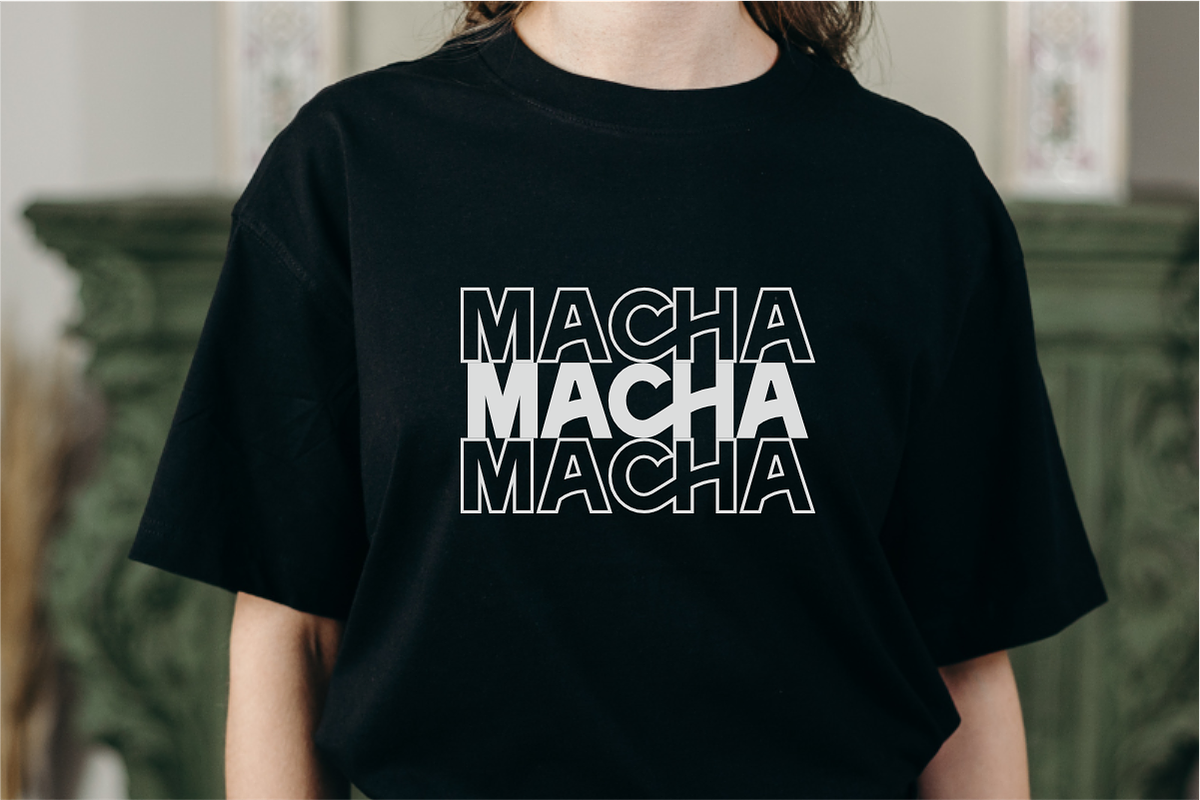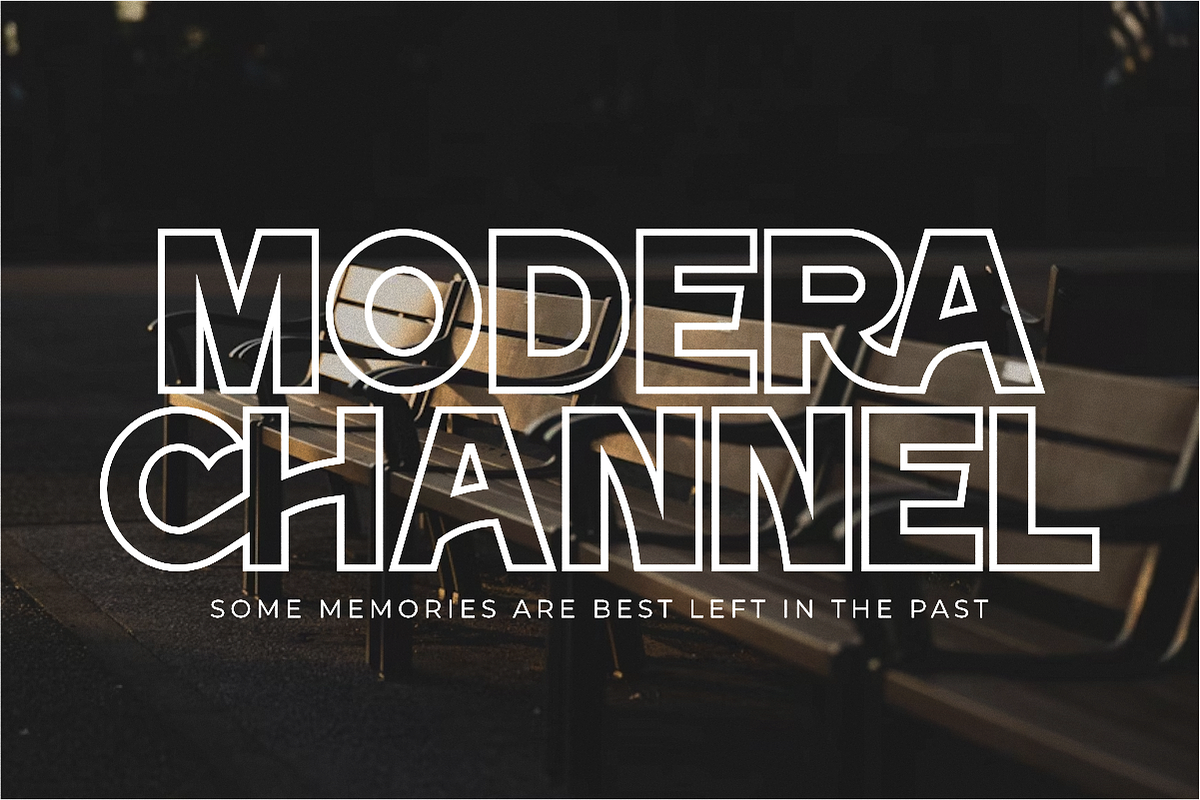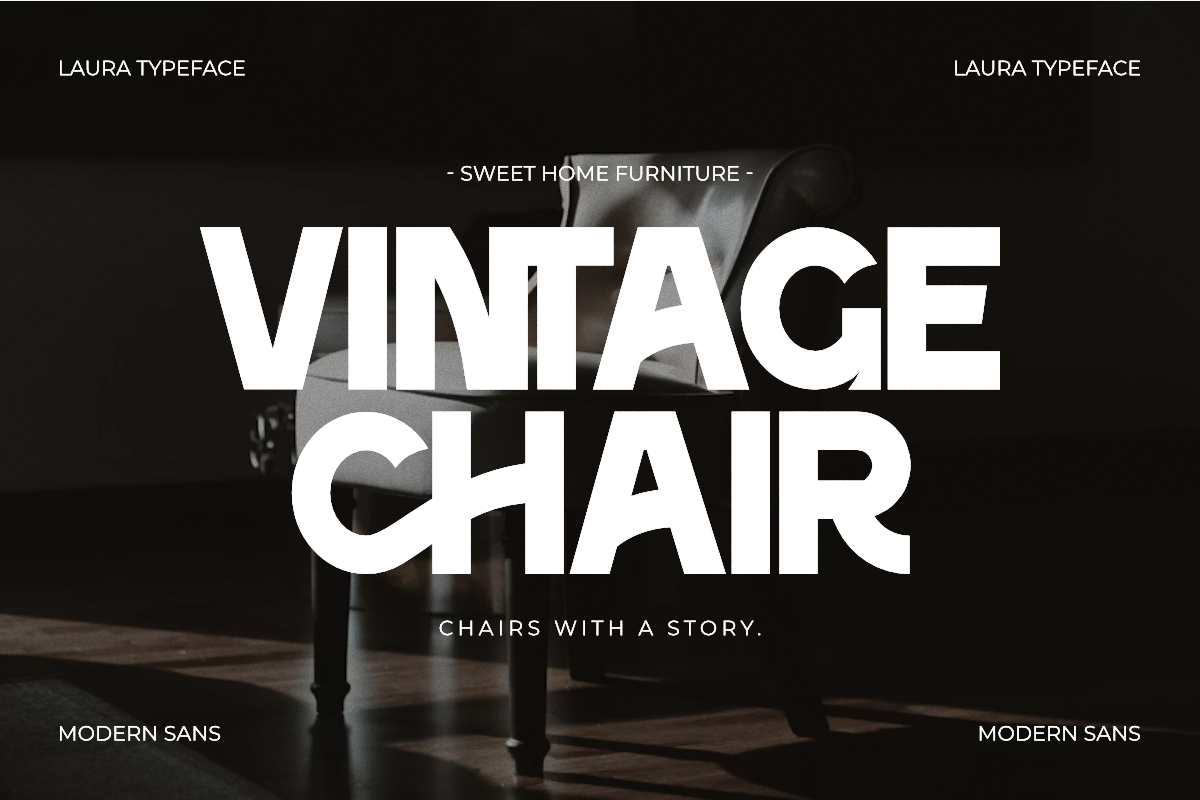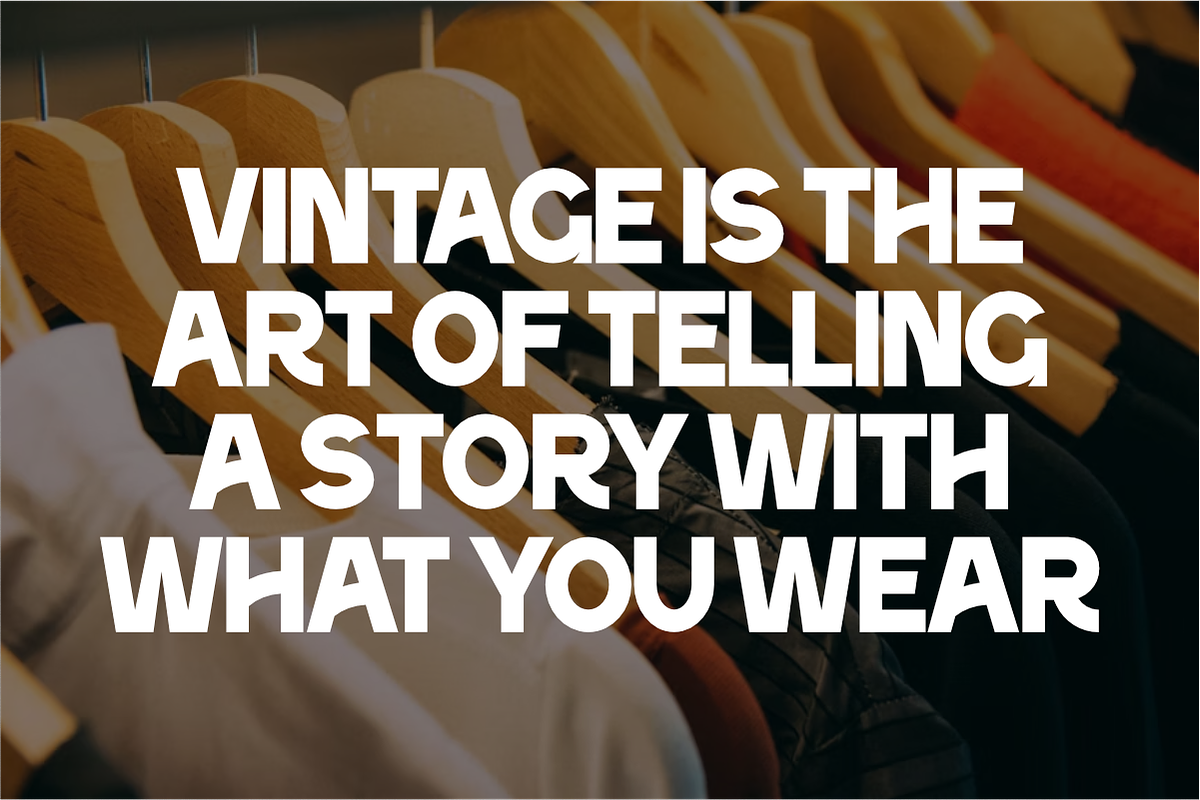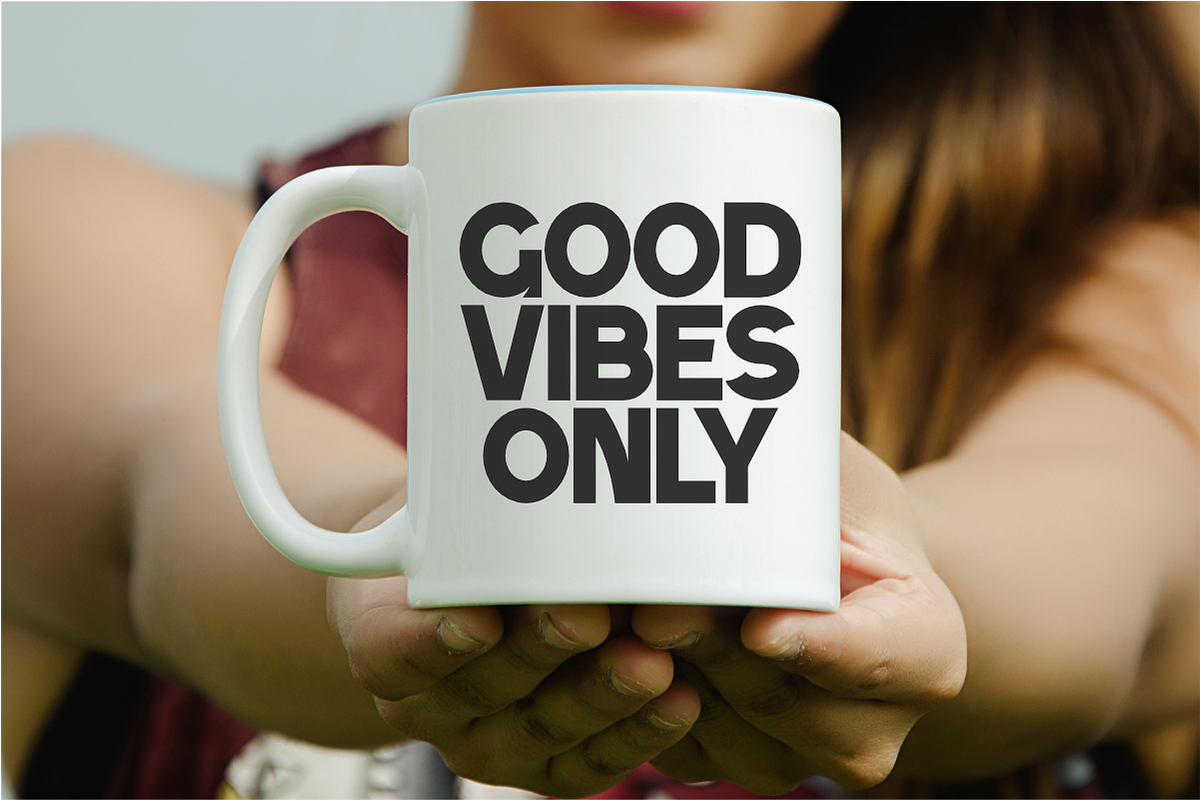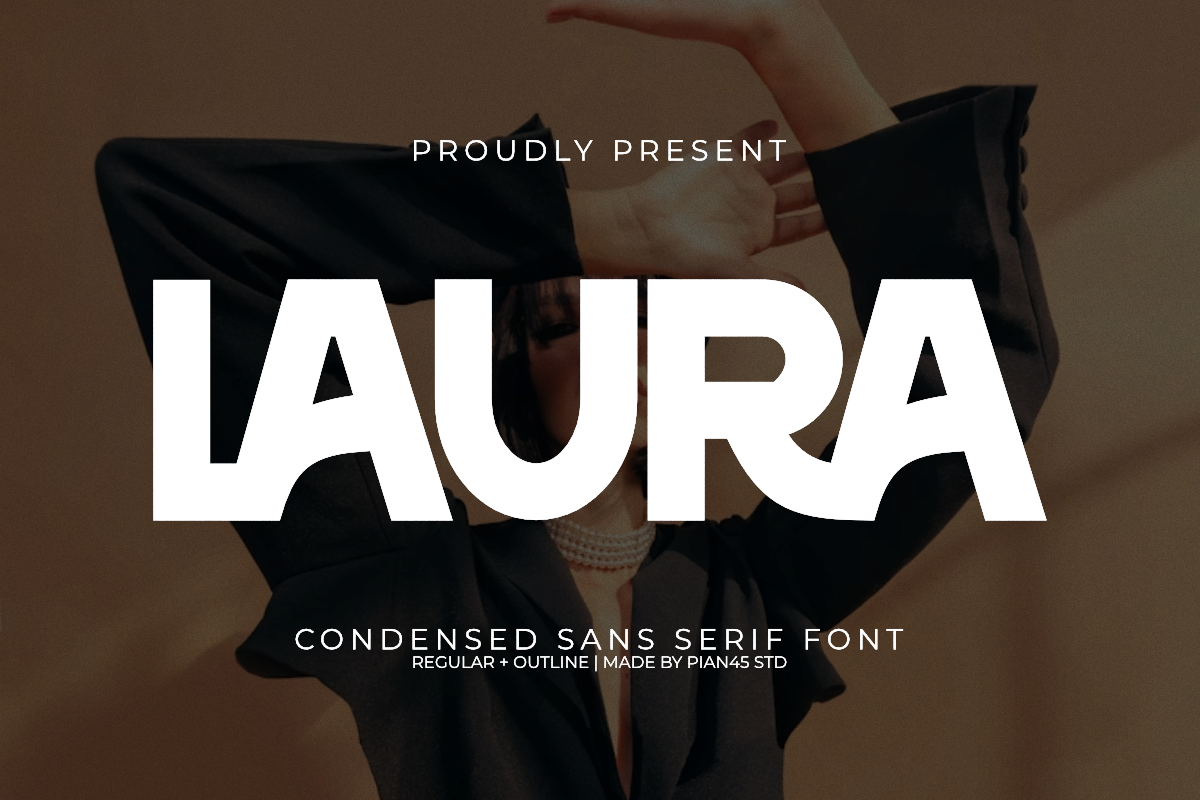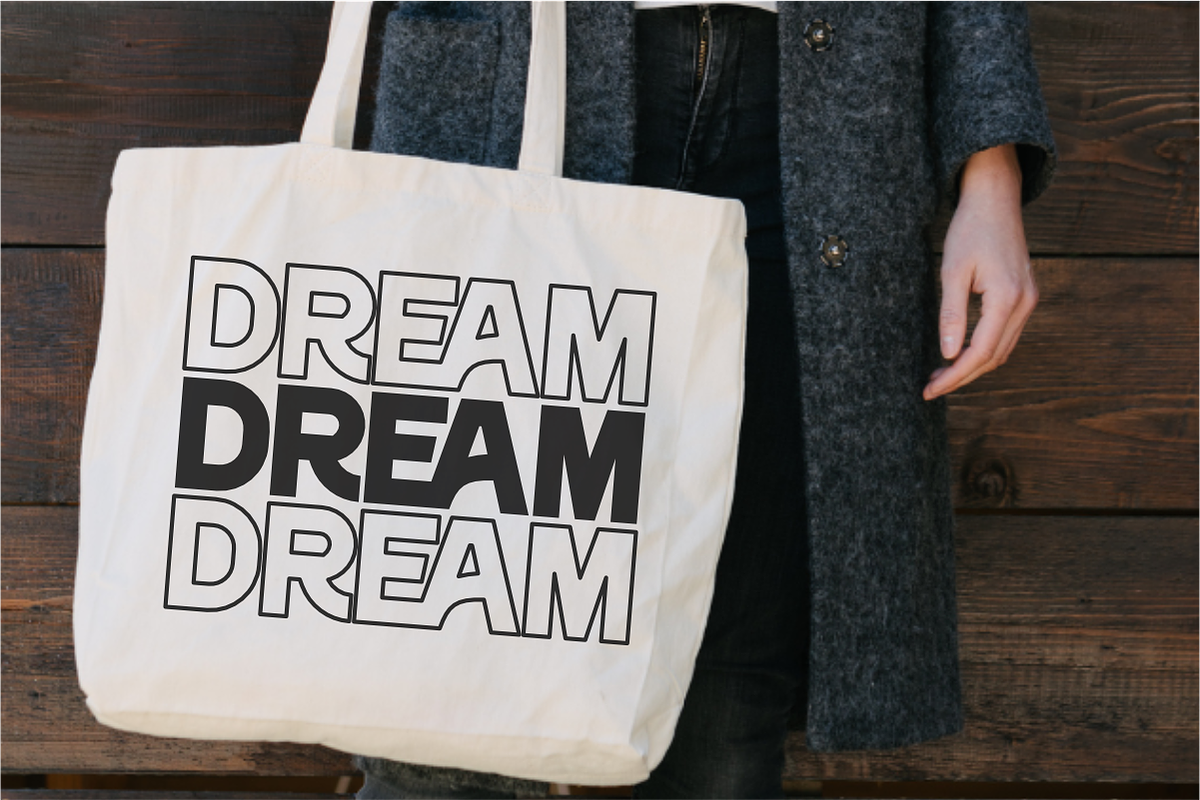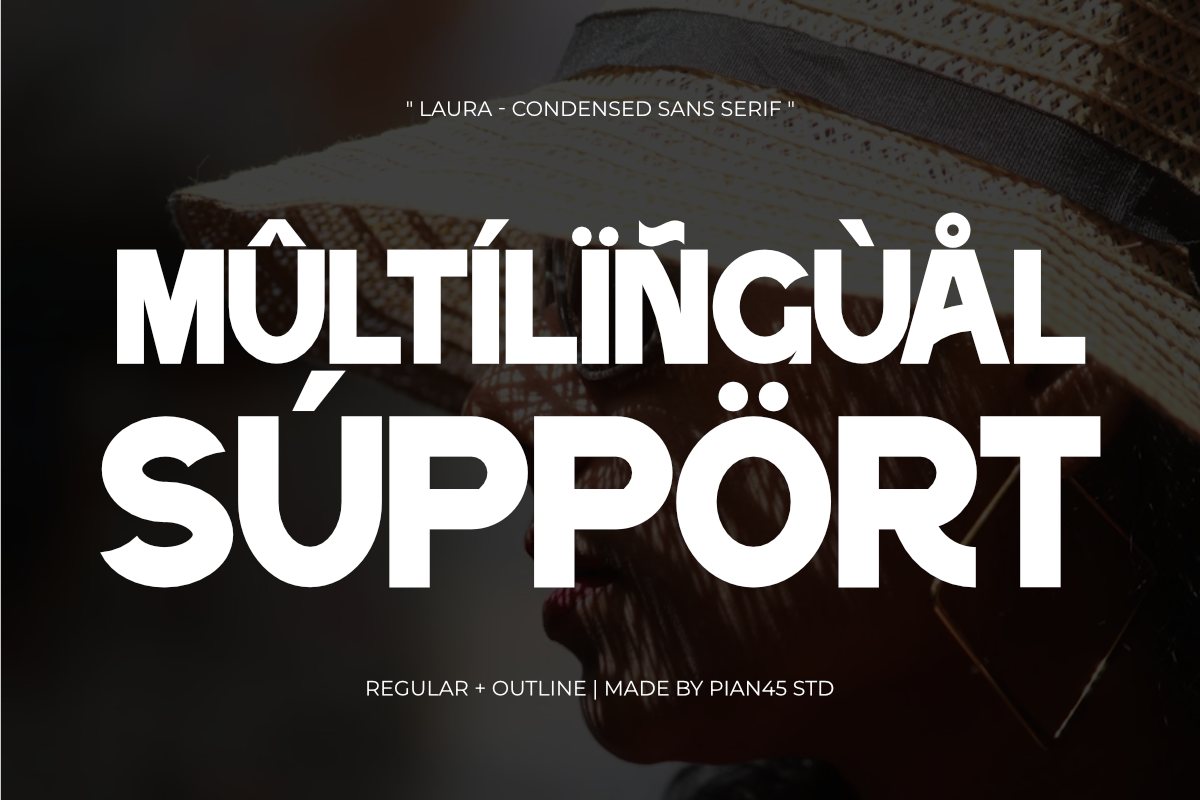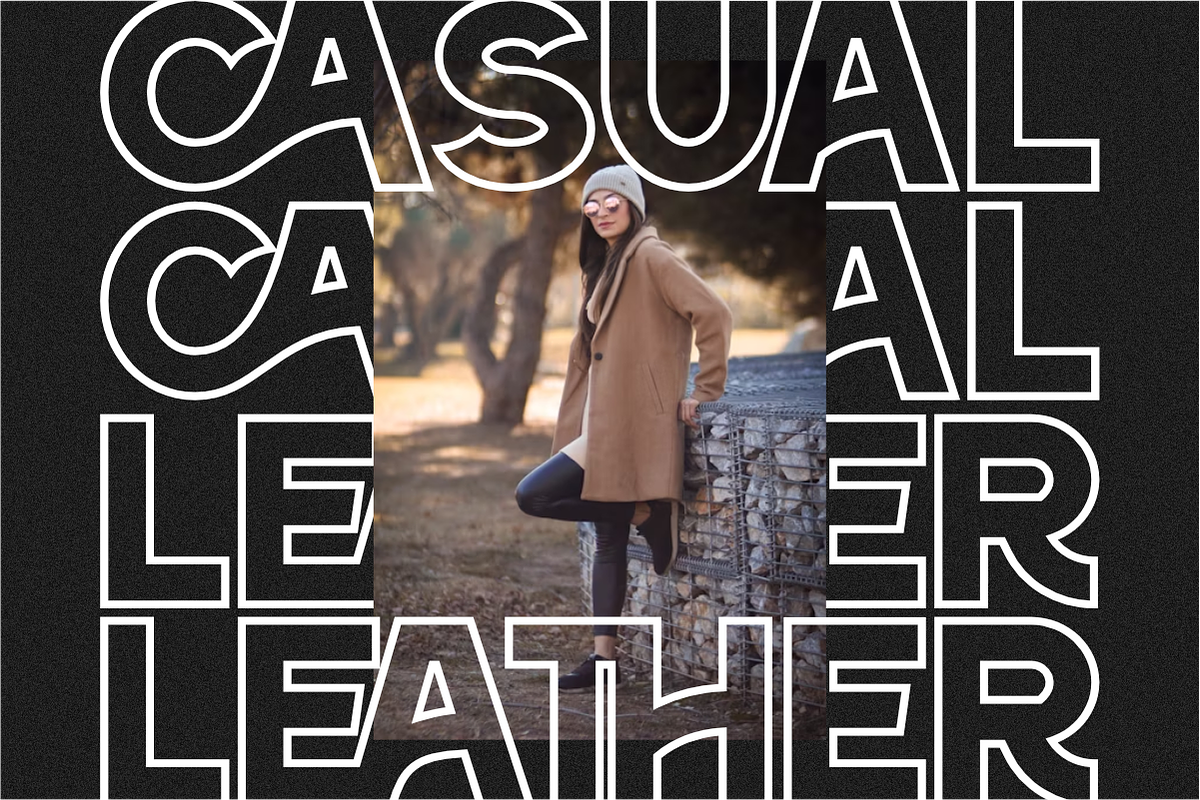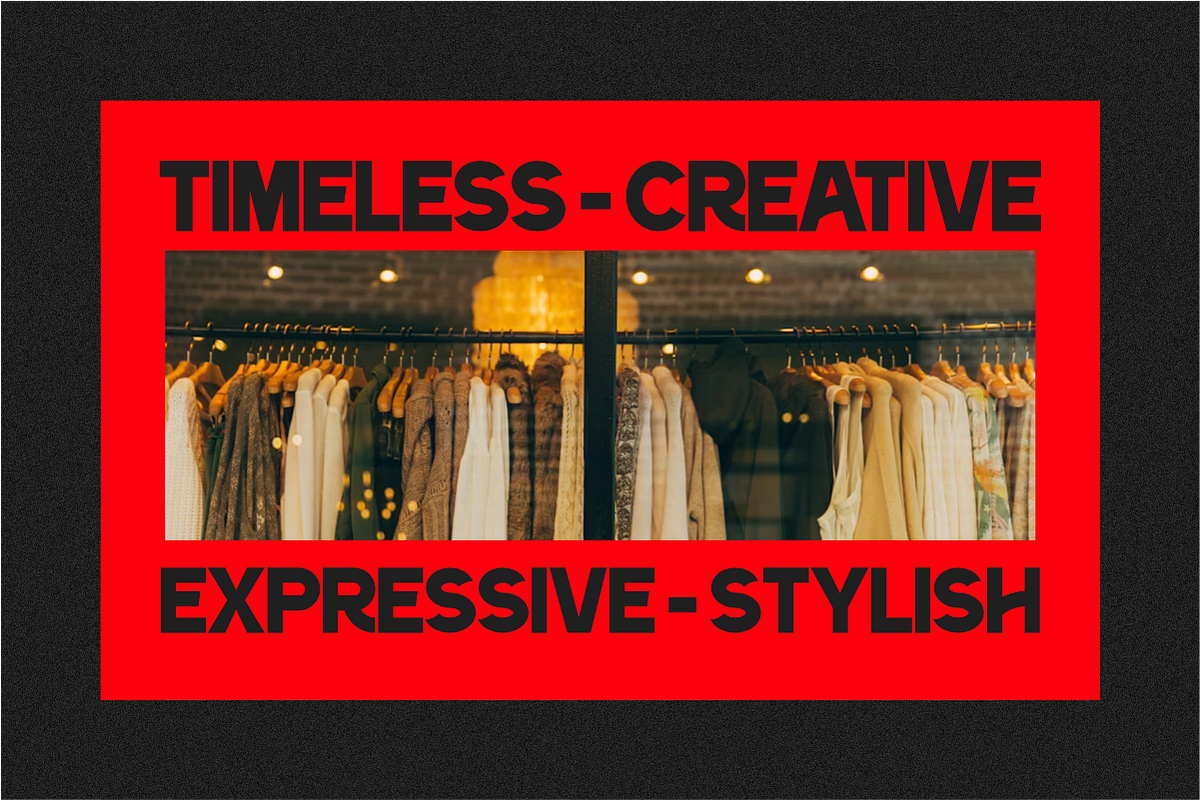
Laura - Condensed Sans Serif Font
Laura is a stunningly clean and ultra condensed sans serif font that masterfully blends vintage fashion with a modern aesthetic. Its tall, slender letterforms and smooth lines create a sophisticated look, perfect for luxury branding. With two distinct styles—Regular and Outline—and elegant ligatures, this font is highly versatile, ideal for fashion magazines, high-end packaging, and any project that needs a chic and timeless touch.